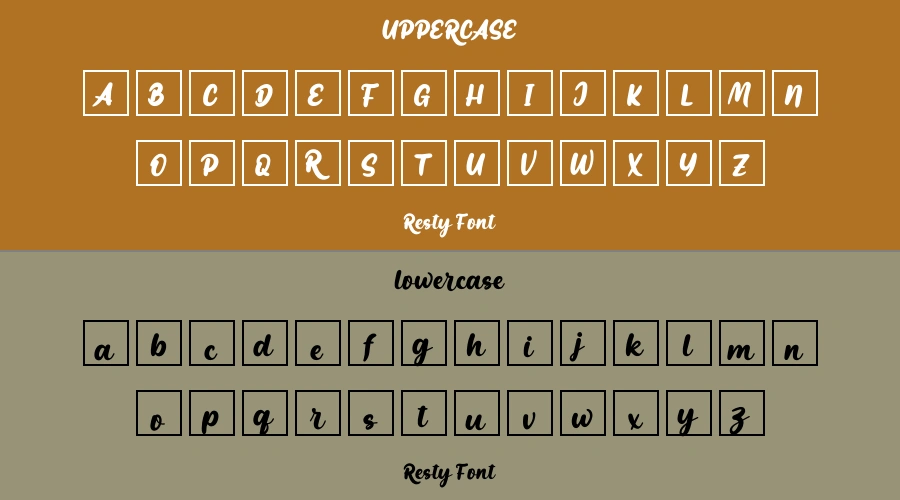
About Resty Font
Resty Font represents a sophisticated approach to type design, balancing flowing forms with distinctiveness. Perfect for financial reports, this font family showcases impressive precision and cultural relevance throughout its character set. Designers appreciate its versatility and reliability.
Designers will appreciate nuanced touches including elegant spacing and contextual alternates, adding sophistication to any project. These features become apparent in certification marks, where archive stability matters most. The careful treatment of cap height ratio and historical reference ensures optimal performance.